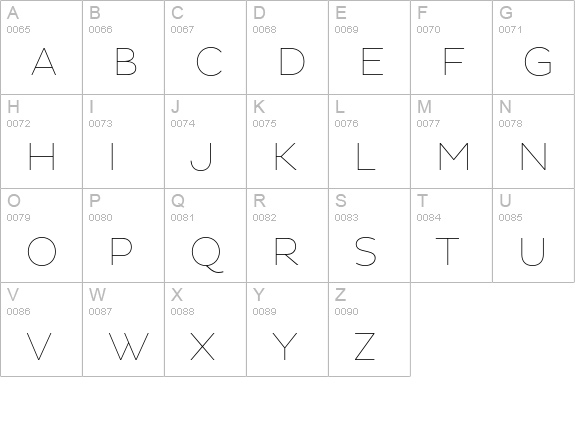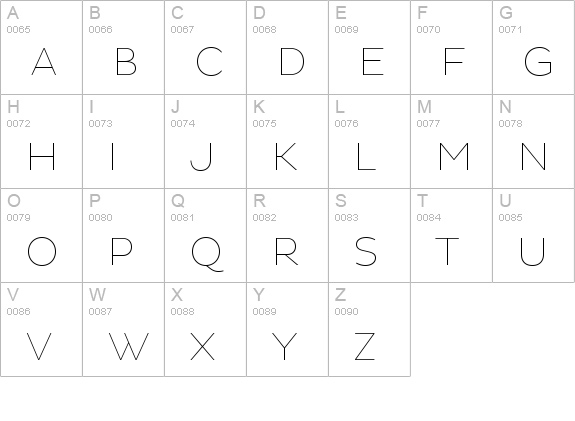
Pluto Sans Thin is a delicate, low-contrast variant in the Pluto typeface family \xE2\x80\x94 well suited to fashion editorial, minimal branding, and high-contrast display.
Pluto Sans Thin font is a sleek and elegant typeface that exudes modern sophistication. With its delicate lines and minimalist design, this font is perfect for creating a clean and contemporary look in your projects. Whether you're designing a logo, website, or any other creative endeavor, Pluto Sans Thin will add a touch of refinement to your work. Best of all, Pluto Sans Thin font is completely free to download at FontsMarket.com. You can easily access this stylish font and elevate your designs without any cost. Don't miss out on the opportunity to enhance your projects with the timeless appeal of Pluto Sans Thin font. Download it today and let your creativity shine!